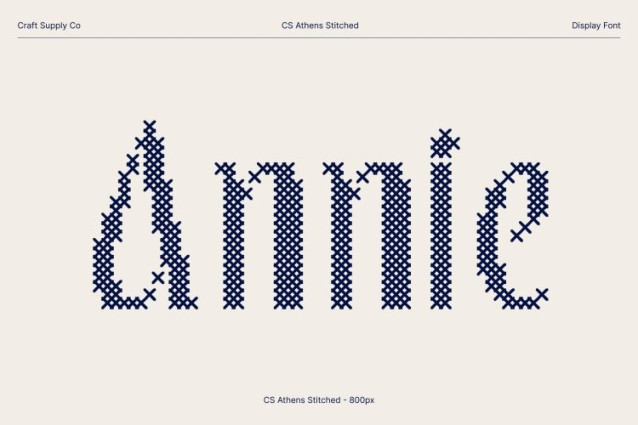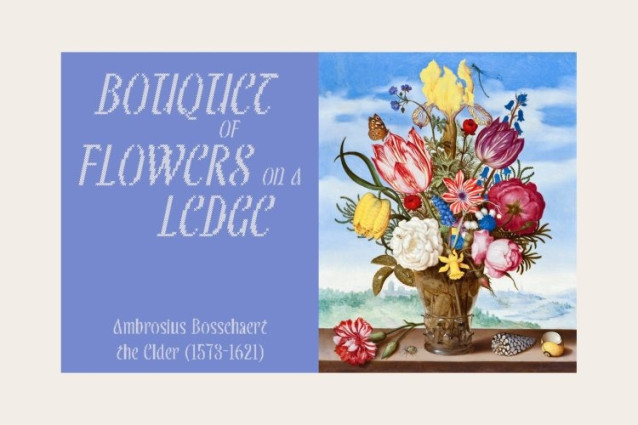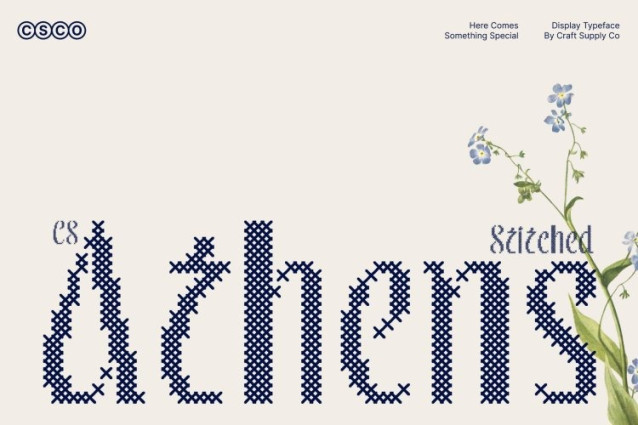
CS Athens Stitched Font
CS Athens Stitched Font – This transforms the refined, contemporary display font into a warm, handcrafted version with a stitched texture. Each letter is subtly enhanced with a cross-shaped embroidered pattern, adding depth and a tactile, personal quality without compromising the font’s sleek, sophisticated lines. This approach creates a luxurious yet approachable aesthetic, perfect for designs that blend modernity with artisanal charm.
Soft Contrast with Refined Presence
The soft contrast between strokes is accentuated by the stitched detailing, giving the letters a delicate yet distinctive appearance. The gentle interplay of thick and thin lines now carries a sense of craftsmanship, making every composition feel elegant, polished, and uniquely expressive. Ideal for projects seeking high-end visual sophistication with a subtle handcrafted nuance.
Perfect for Invitations, Branding, and Stationery
This is perfectly suited for wedding invitations, luxury branding, formal event materials, and high-end stationery. The combination of modern, graceful letterforms and stitched texture adds both prestige and warmth, ensuring your designs stand out with timeless elegance and handcrafted refinement.